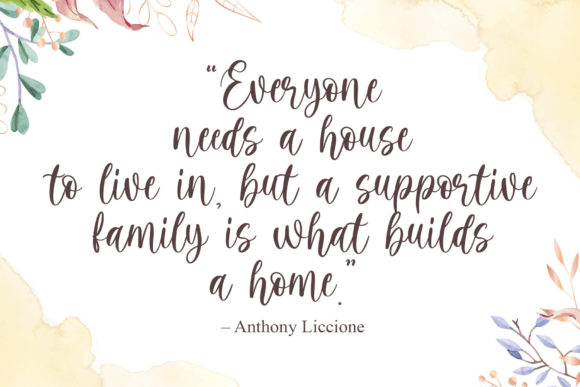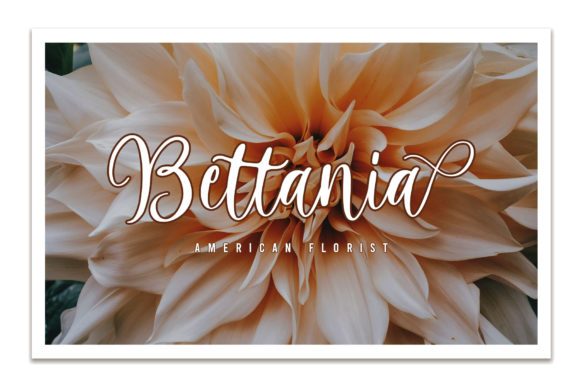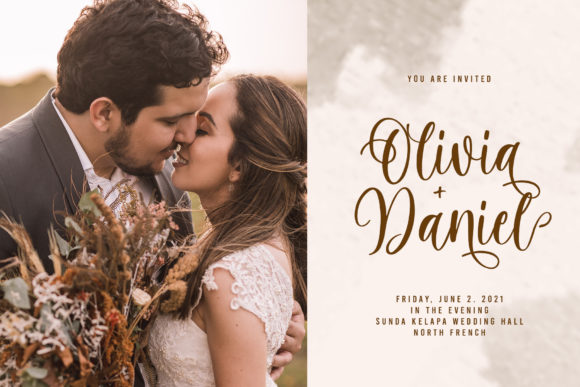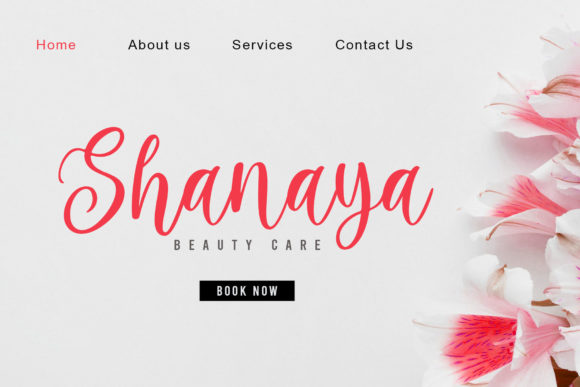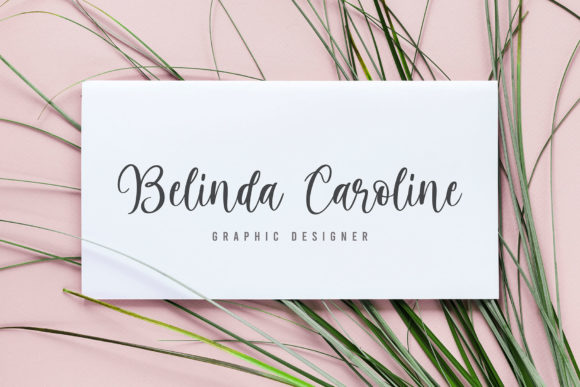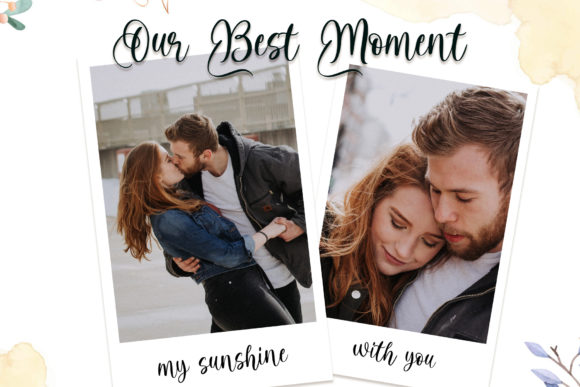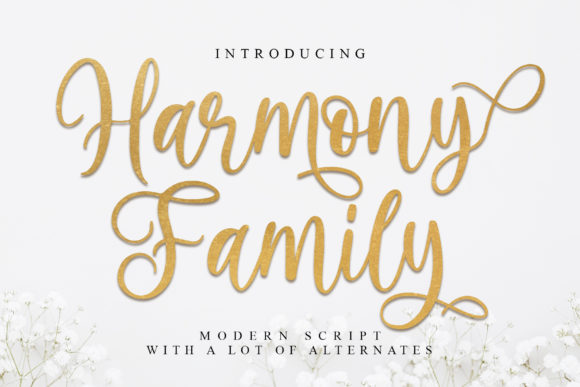
Introducing Harmony Family Font: Elevate Your Designs with Elegance
Are you on the hunt for a font that can add a touch of sophistication and beauty to your designs? Look no further than the Harmony Family Font, a stunning handwritten font that is sure to become a treasured addition to your font library. With its meticulous craftsmanship and attention to detail, this font is perfect for designers and crafters seeking to elevate their creations.
Handwritten fonts have a unique charm that can instantly add a personal touch to any design. They evoke emotions, convey personality, and create a sense of connection with the viewer. The Harmony Family Font takes this to the next level with its exquisite, neatly crafted design. Each letter is carefully penned to create a beautiful, flowing script that is both elegant and refined.
What Makes Harmony Family Font Special?
- Highly Detailed and Neatly Crafted: The Harmony Family Font boasts intricate details and a clean design, making it perfect for a wide range of applications, from digital designs to print materials.
- PUA Encoded: This font is PUA (Private Use Area) encoded, which means you can easily access all glyphs and swashes. This feature allows for greater flexibility and creativity in your designs.
- Versatile: Whether you’re working on a branding project, creating social media graphics, or designing a website, the Harmony Family Font can adapt to any topic or theme.
Enhance Your Creations with Harmony Family Font
The Harmony Family Font has the potential to transform your designs, adding a level of sophistication and elegance that will set them apart. Its versatility means you can use it across various platforms and projects, from:
- Branding and Logos: Create a lasting impression with a beautiful, custom logo that reflects your brand’s personality.
- Social Media Graphics: Elevate your social media presence with eye-catching graphics that showcase your brand’s style.
- Web Design: Enhance your website’s aesthetic with a elegant font that complements your content.
- Print Materials: Use the Harmony Family Font in brochures, flyers, and other print materials to add a touch of class.
Why Designers and Crafters Love Harmony Family Font
Designers and crafters appreciate fonts that offer flexibility, creativity, and ease of use. The Harmony Family Font checks all these boxes and more:
- Easy to Use: With its PUA encoding, you can easily access and use the font’s various glyphs and swashes.
- Customizable: The font’s design allows for endless possibilities, making it easy to tailor your designs to your specific needs.
- Time-Saving: The Harmony Family Font’s versatility means you can use it across multiple projects, saving you time and effort in the long run.
In conclusion, the Harmony Family Font is a beautiful, highly detailed handwritten font that can elevate your designs to new heights. Its versatility, ease of use, and elegant design make it a valuable asset for designers and crafters. Whether you’re looking to create stunning branding materials, eye-catching social media graphics, or beautiful print materials, this font is sure to become a favorite in your font library.